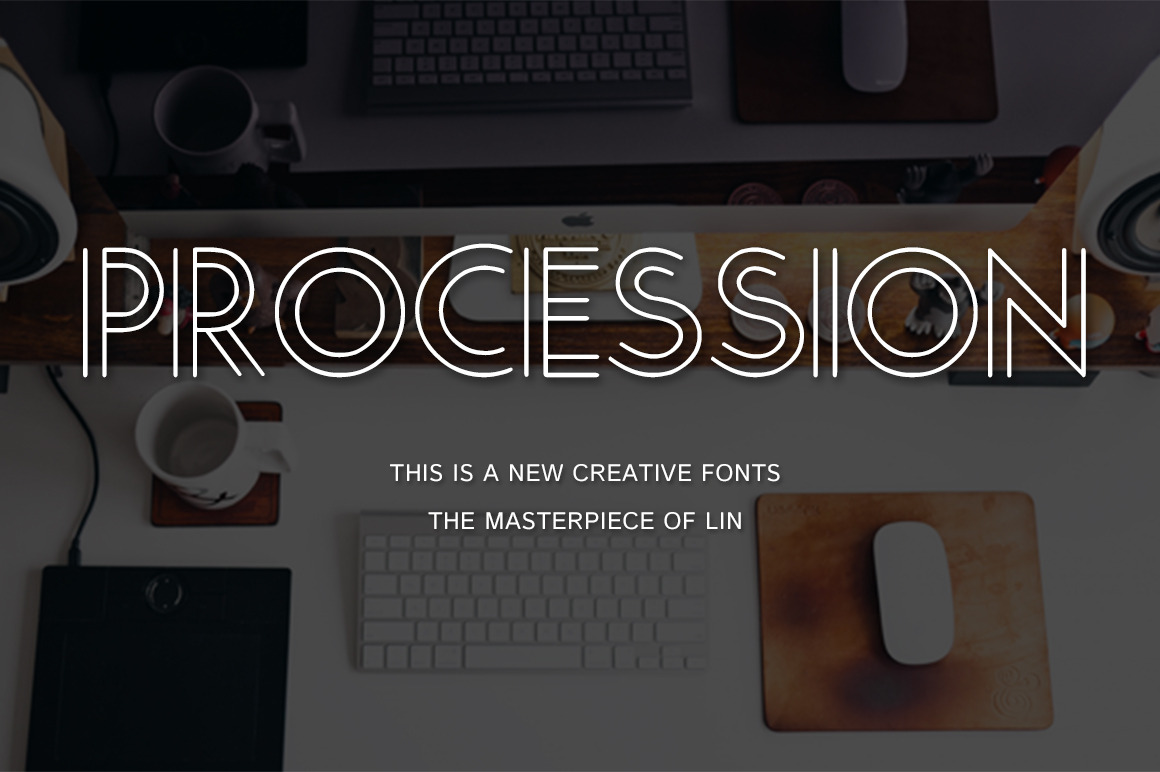
Procession-Creative font
A new creative fonts,It suitable for all kinds of style,Suitable for: Web design,Graphic Design,Posters,Concert,Goods,Magazine, etc. It is very cool It is suitable for making logo and posters.